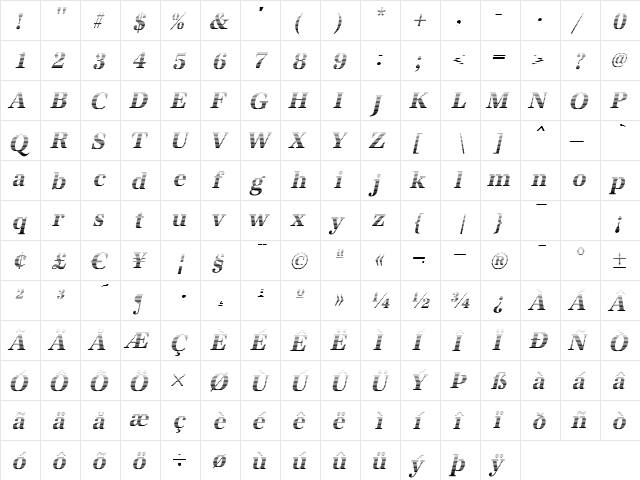
IrisBeckerGradientC BoldItalic Font Preview
Design Context for IrisBeckerGradientC Typeface
IrisBeckerGradientC is a composed and adaptable typeface that performs quietly and consistently across a wide range of design contexts. Its italic angle brings a sense of urgency and motion to the letterforms. The heavy weight commands attention and anchors typographic hierarchies.